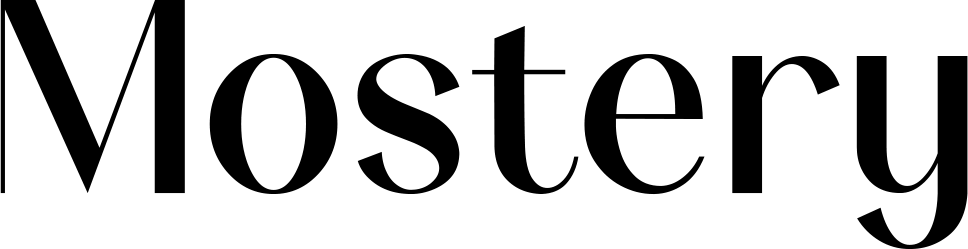
Mostery Font
Mostery is a luxurious sans-serif font that has the perfect design! It offers classy, trendy characters that add a modern feel to your typography! Download now and add it to your design for a lively, sociable, and decent approach.
Not only you will be able to create what you are aiming for, but you can do it well because it offers a complete set of letters. Mostery is beneficial for many places, books, apps, movies, flyers, logos, and more.